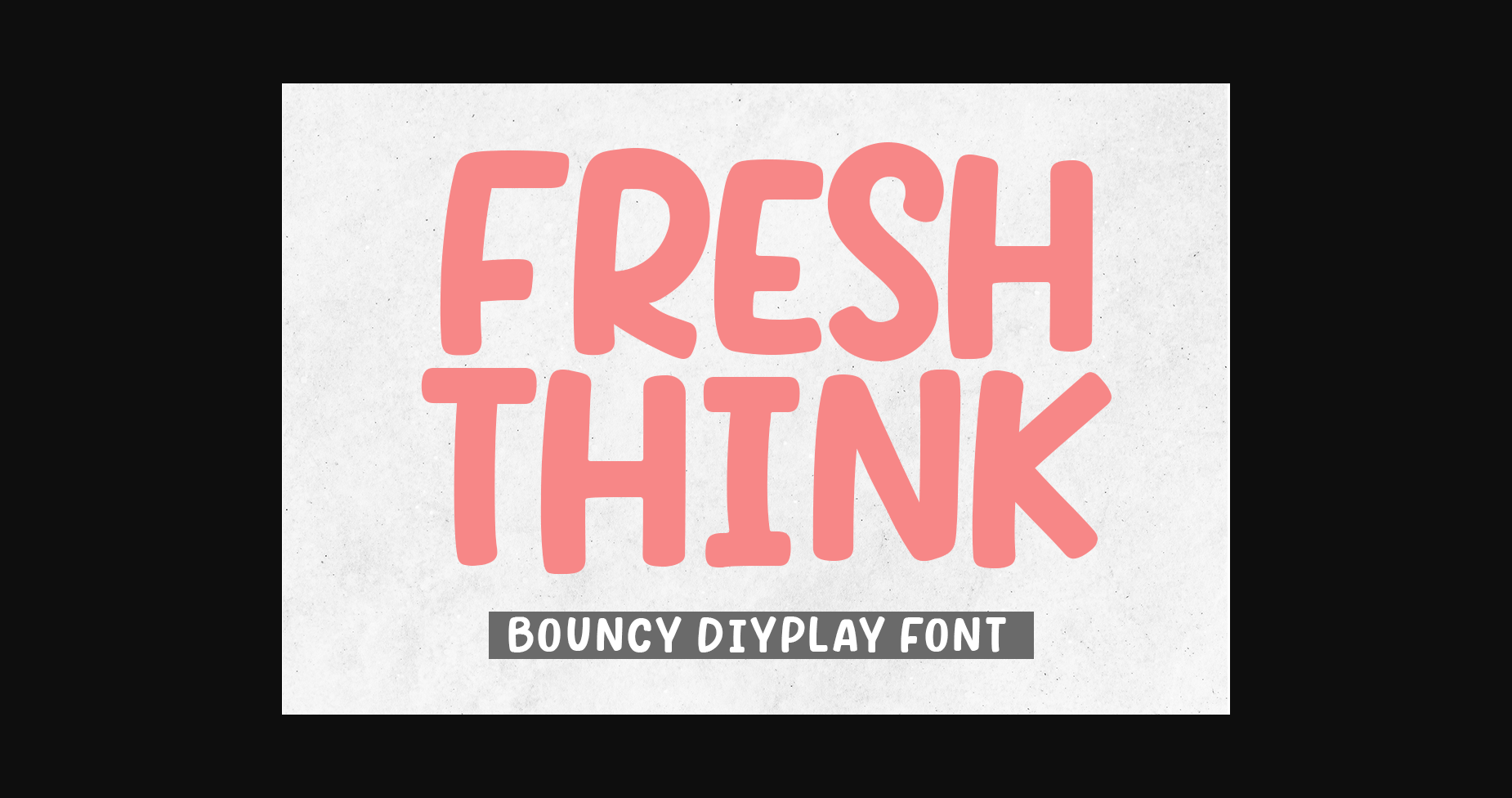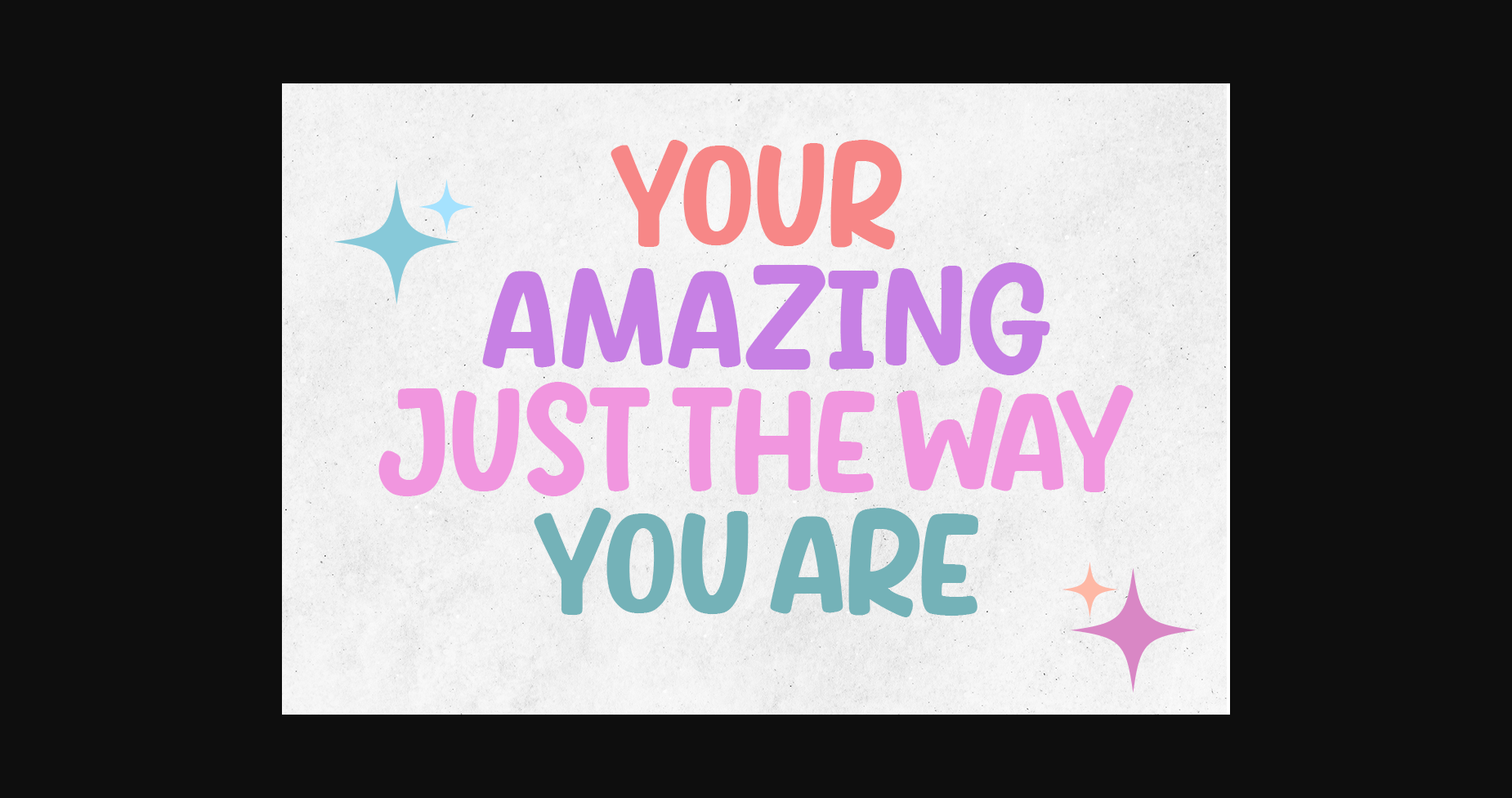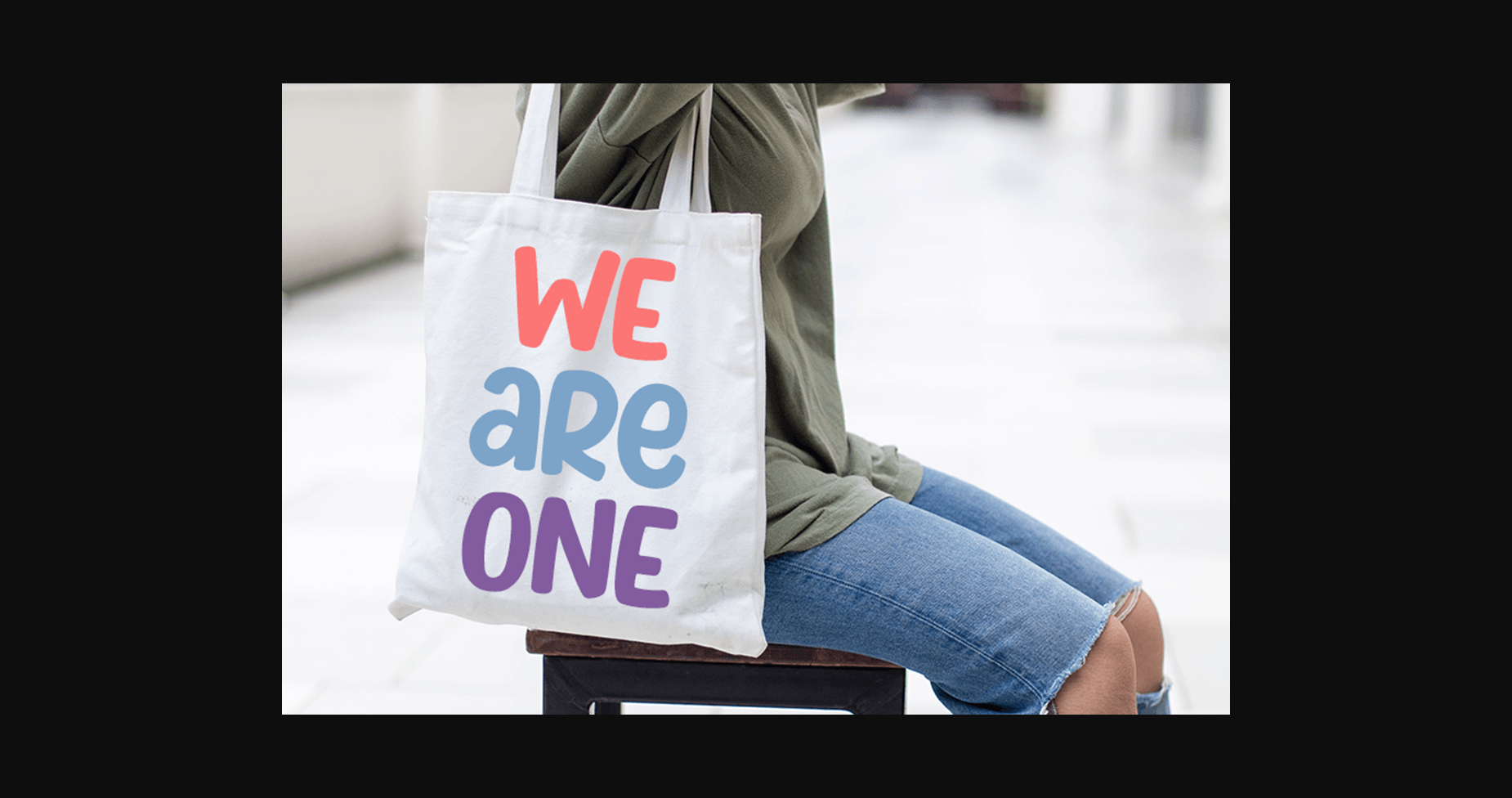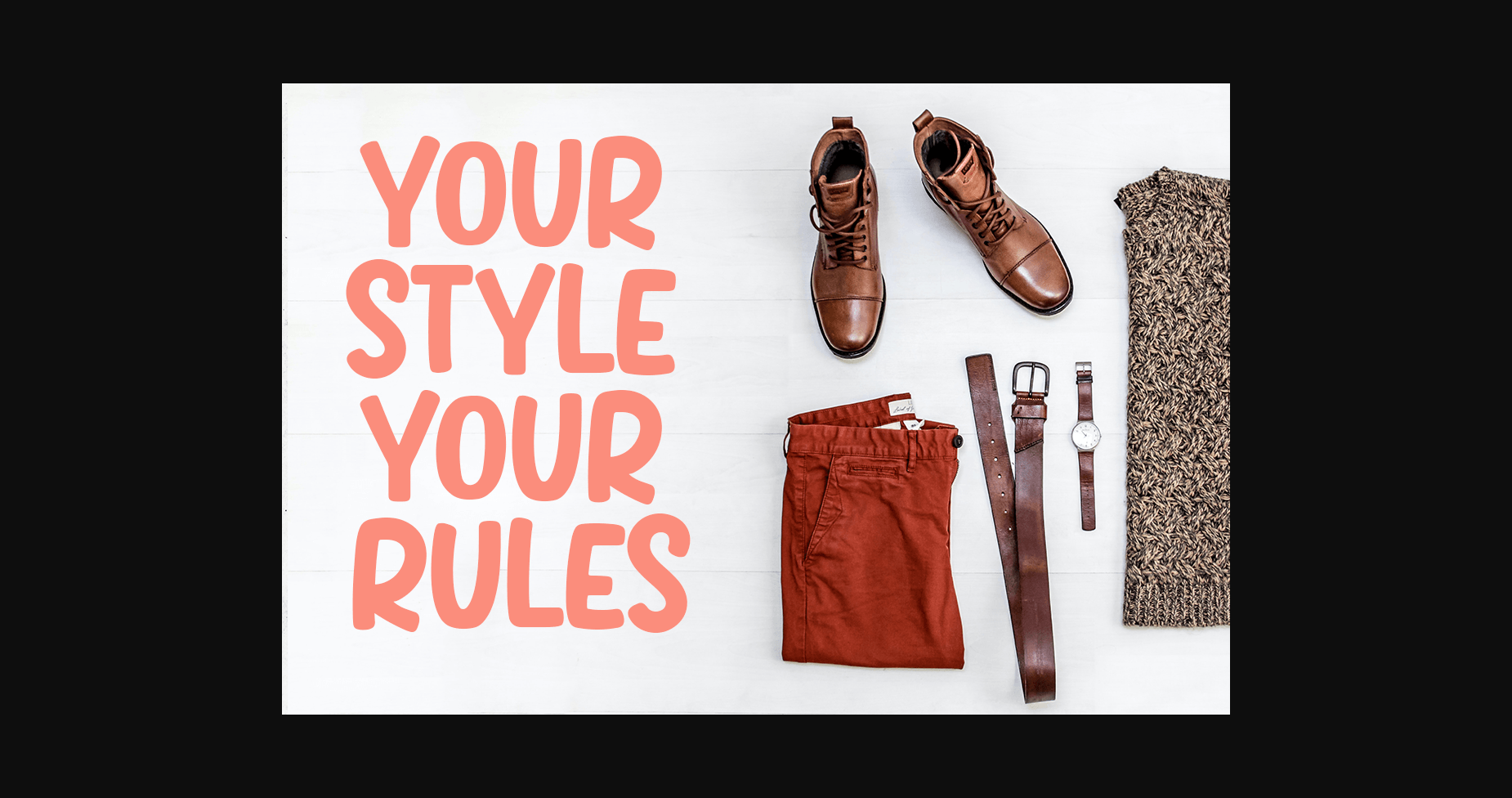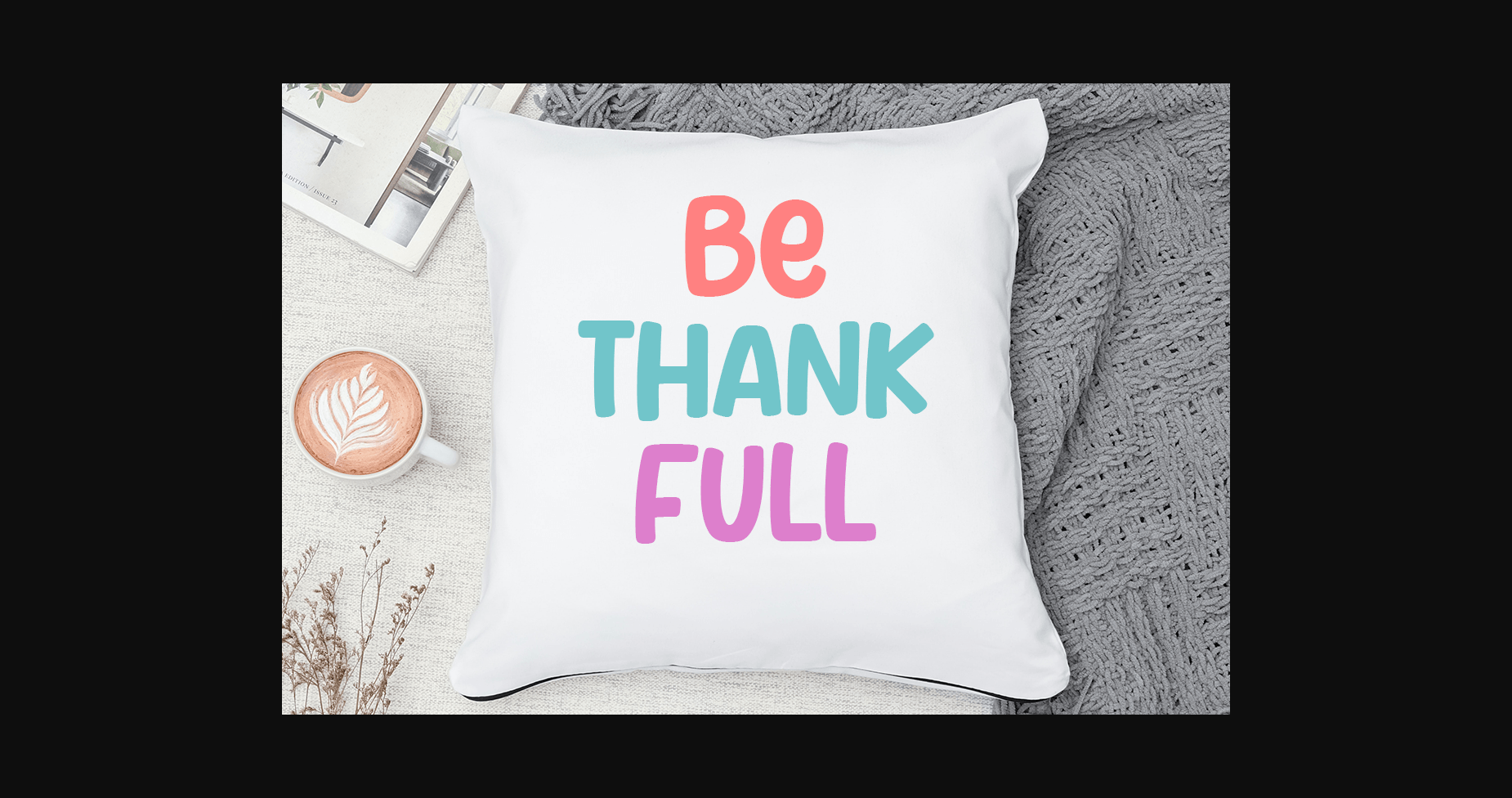
Fresh Think Font
About Fresh Think Font
Fresh Think is a bold, handcrafted sans serif font that looks cute, friendly and fun. Whether you’re using it for crafts, digital design, presentations, or creating greeting cards, this font has the potential to become your favorite font, whatever the occasion!